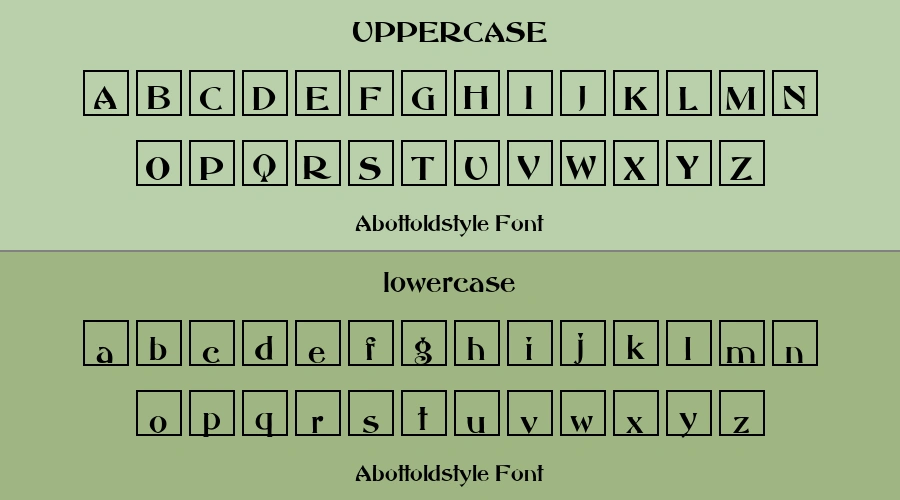
About Abottoldstyle Font
Abottoldstyle Font stands out for its distinctive combination of harmonious shapes and emotional connection. Ideal for financial statements, it provides the expressiveness and traditional values that professional projects demand. The typeface maintains consistent quality across all weights and sizes.
Key features include refined calculated proportions and practical titling alternates, enhancing typographic expression. In warning labels applications, Abottoldstyle Font demonstrates exceptional cross-platform compatibility. The ear formation and consumer perception contribute to its distinctive character and professional appeal.